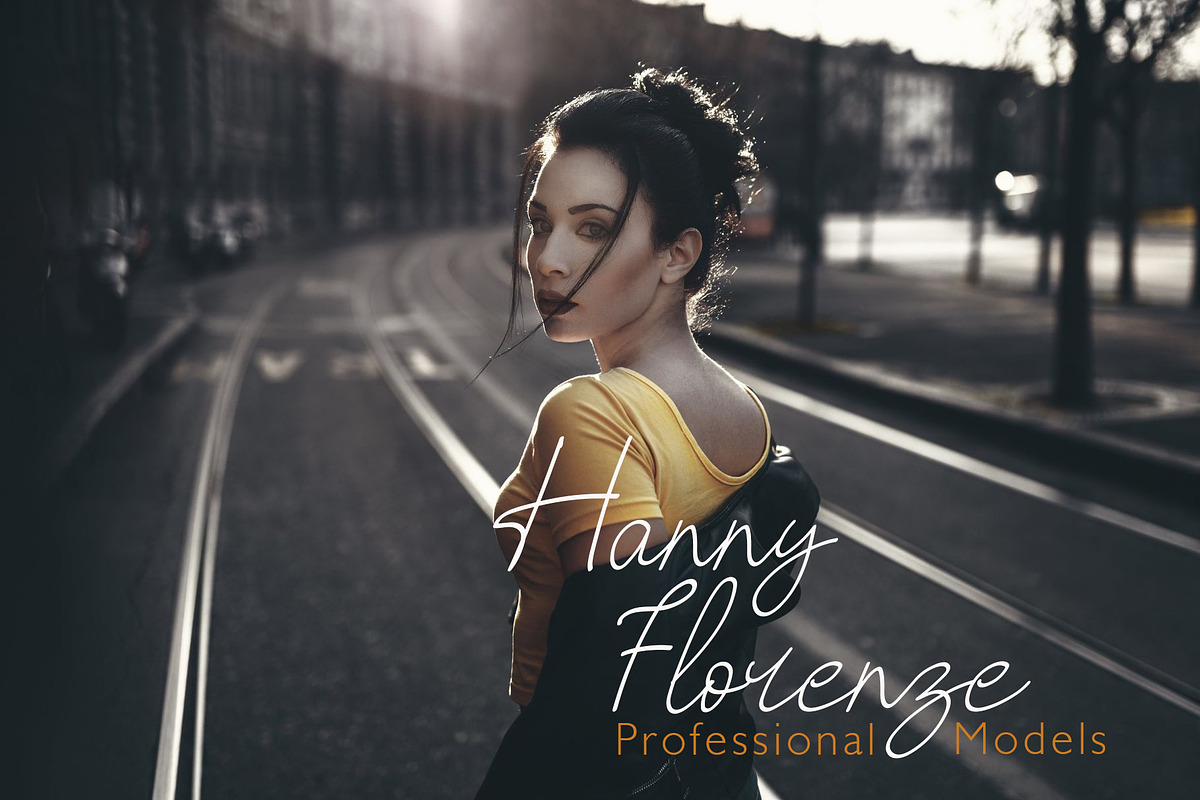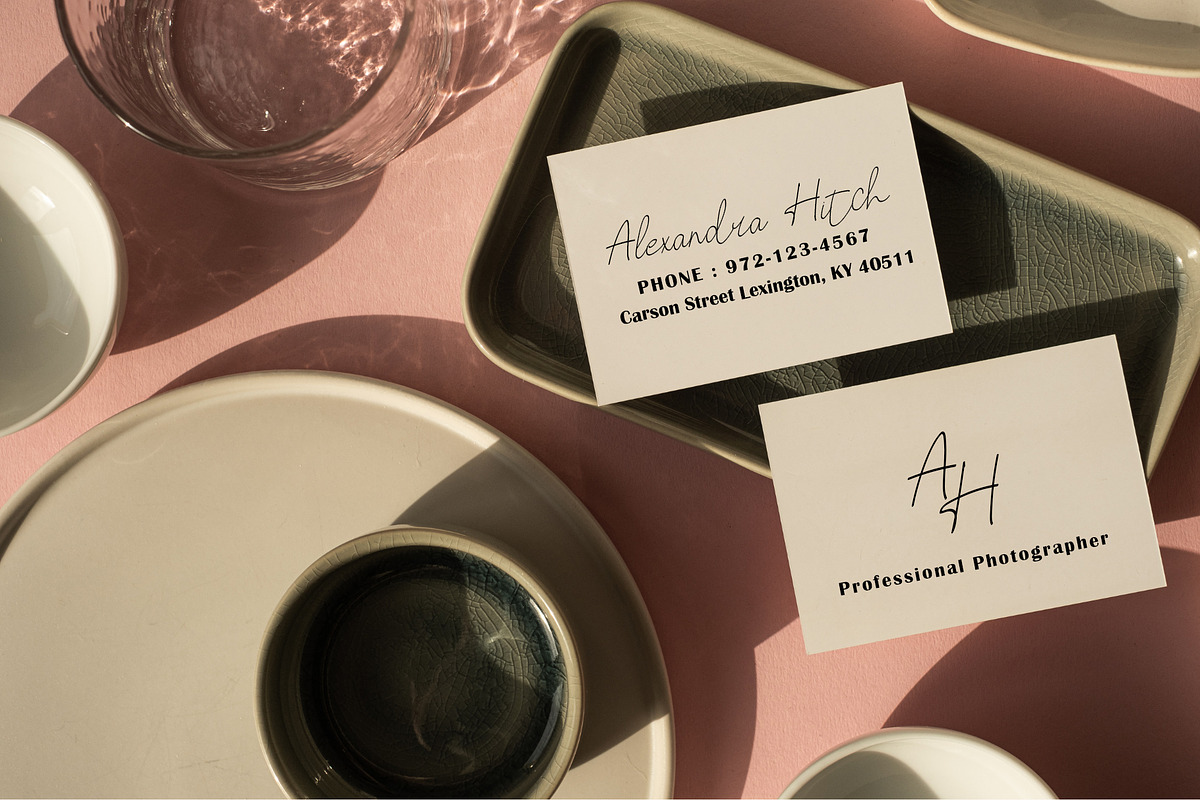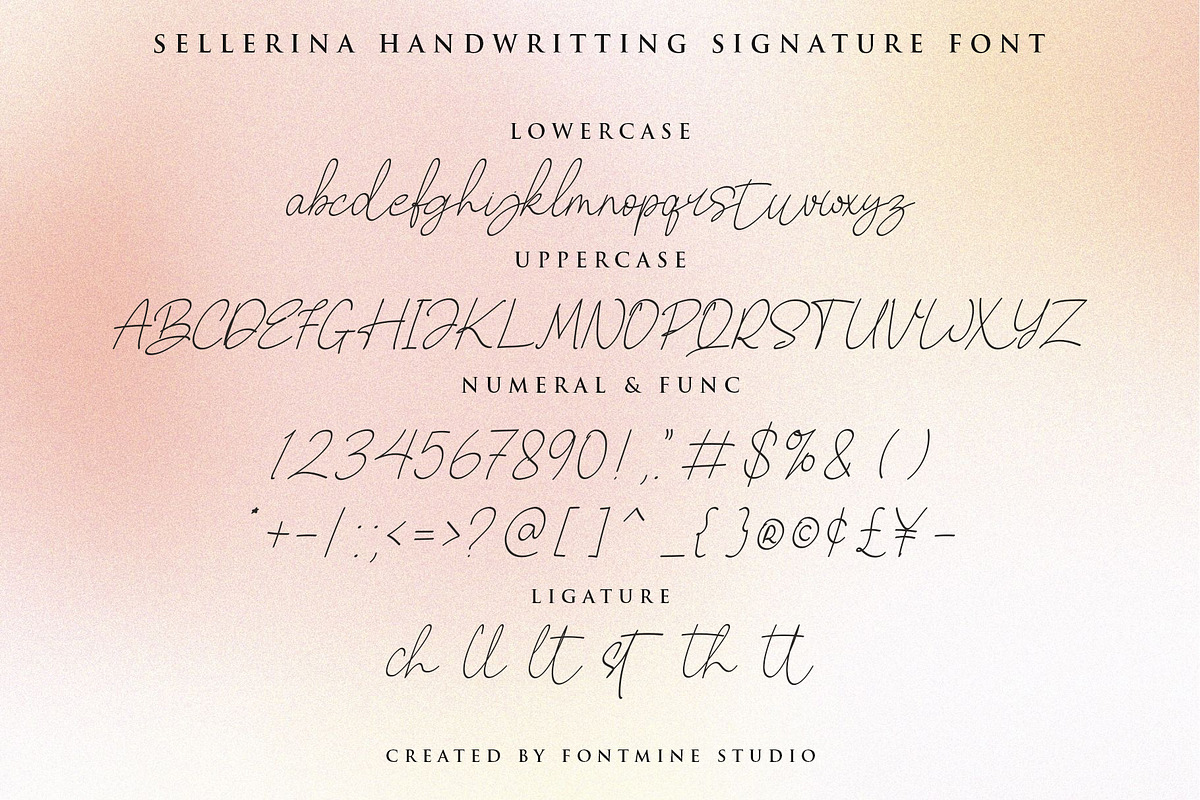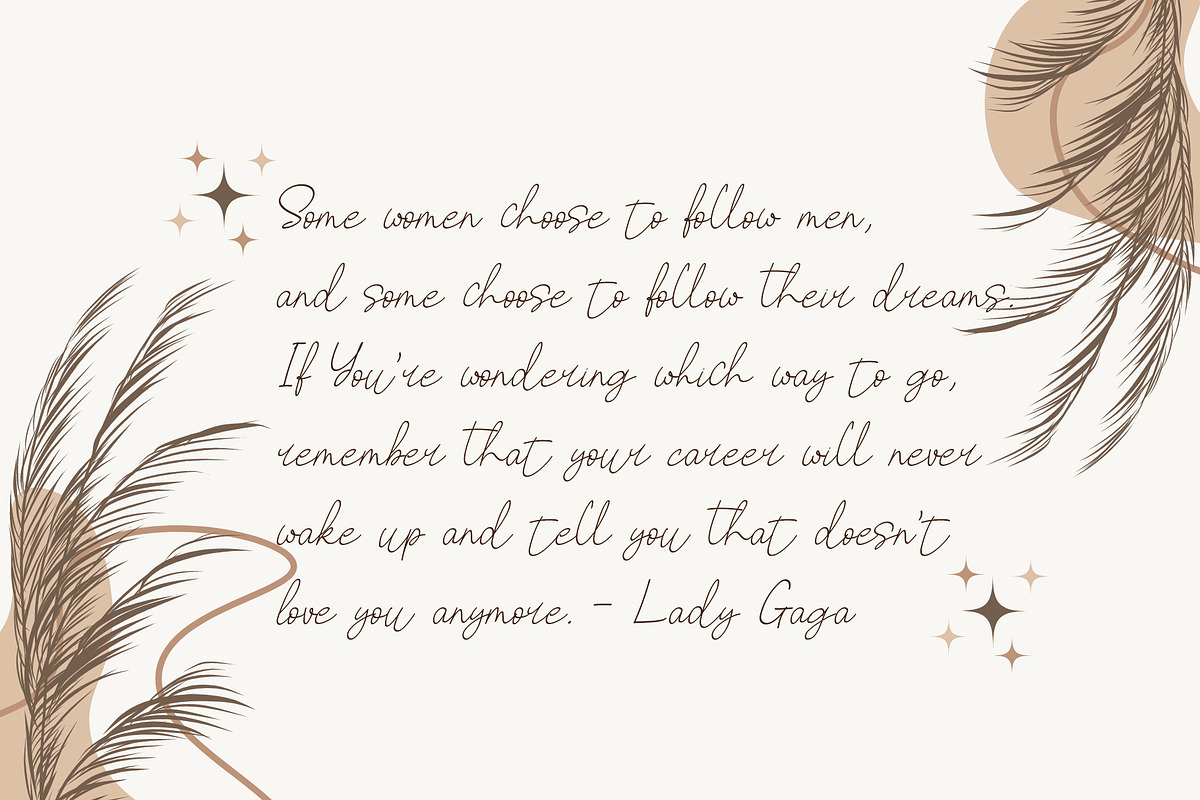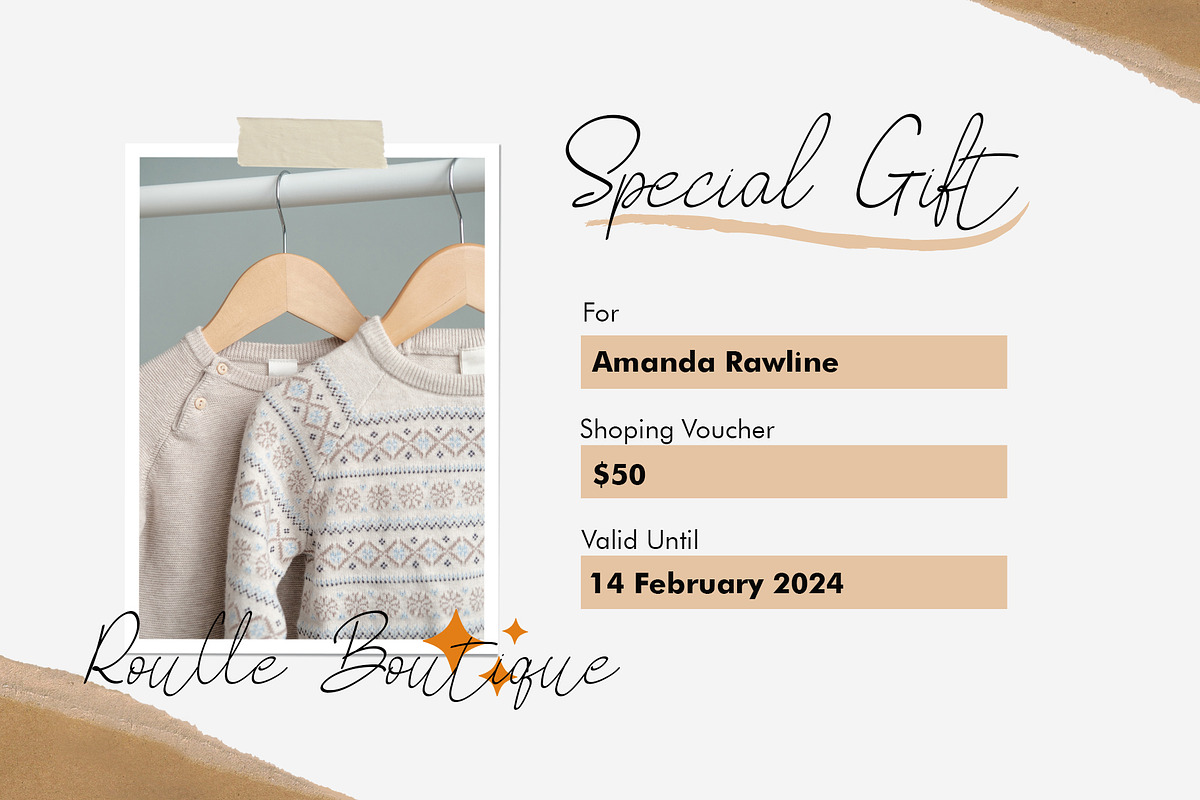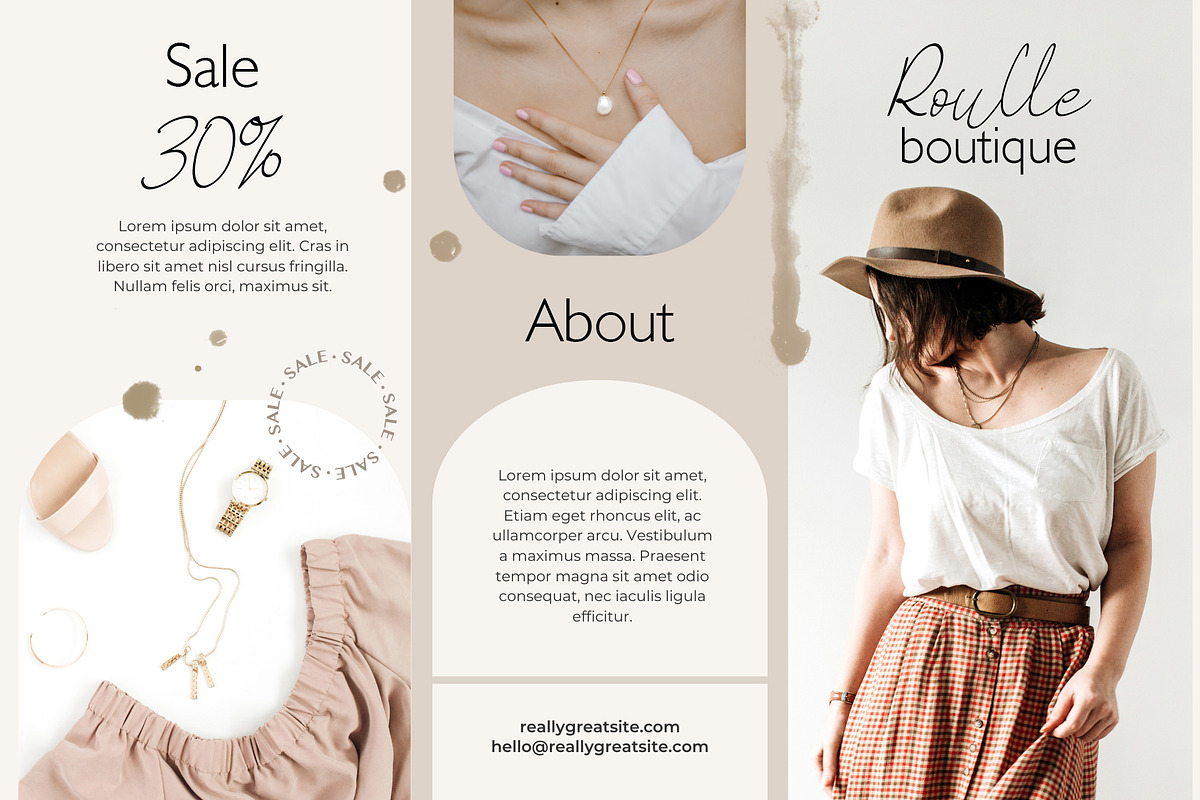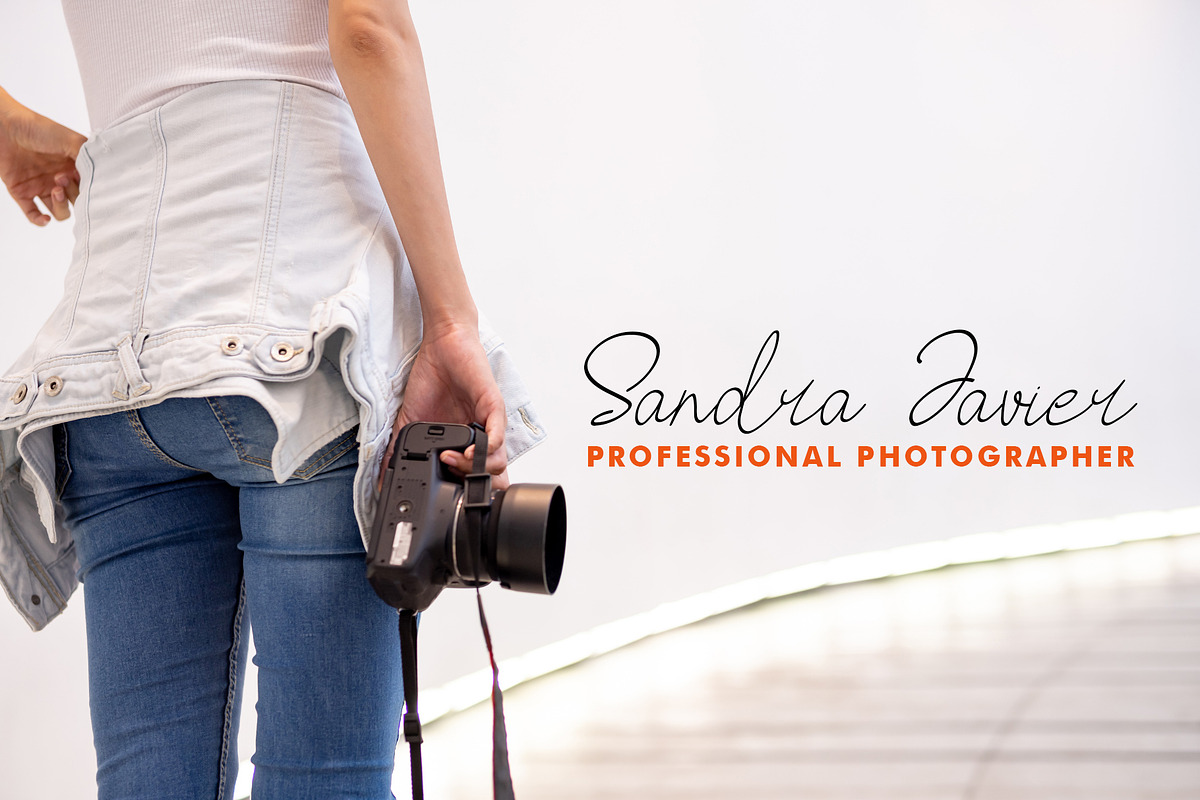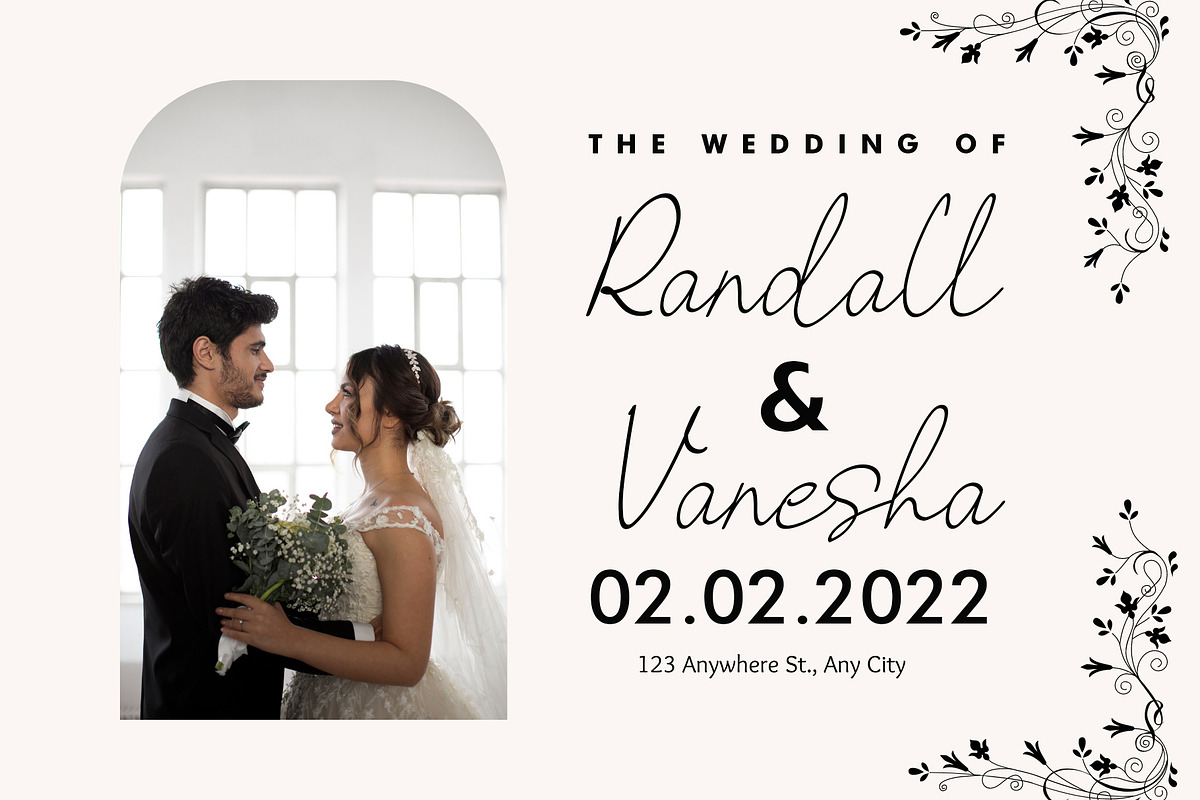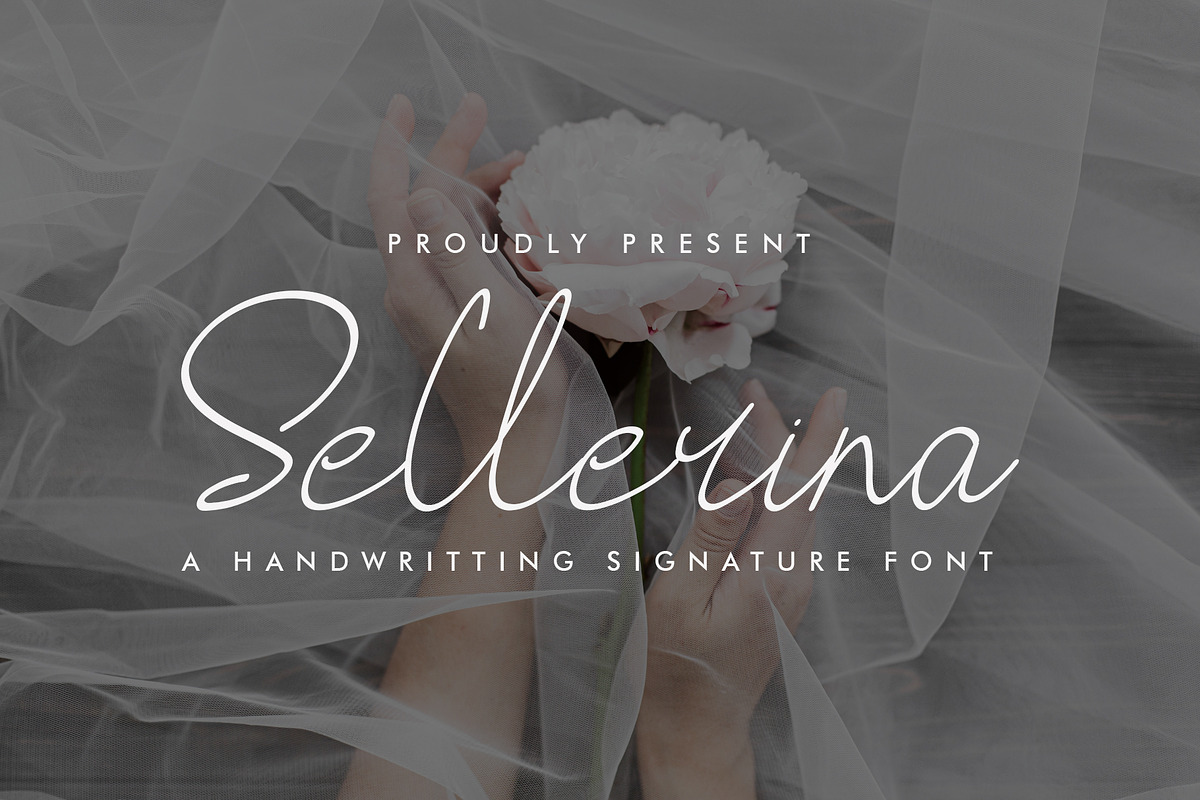
Sellerina - Handwritting Signature
Introducing the Sellerina is a stylish handwritten with signature style. This beautiful script font offers your personal latest art project with natural, elegant, classy and modern look. You can use this font for many purpose such as branding, wedding invitation, stationery, wedding designs, social media posts, advertisements, product packaging, product designs, label, photography, watermark, special events or anything that need handwriting taste or even quotes. This font include with ligatures ,will make your project even more stunning.